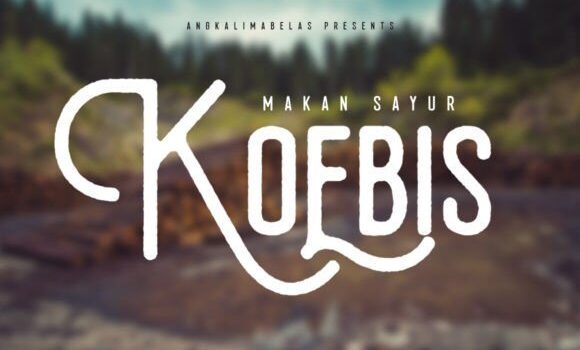
Koebis Font – Free Download Introduction to Koebis Font Koebis Typeface Handrawn typeface with a modern stylist feel. 📸 Preview Gallery 2 images 📌 Product Name Koebis Font 👤 Author Angkalimabelas 📂 Category Explore ⬇️ Download Koebis Font FREE Free